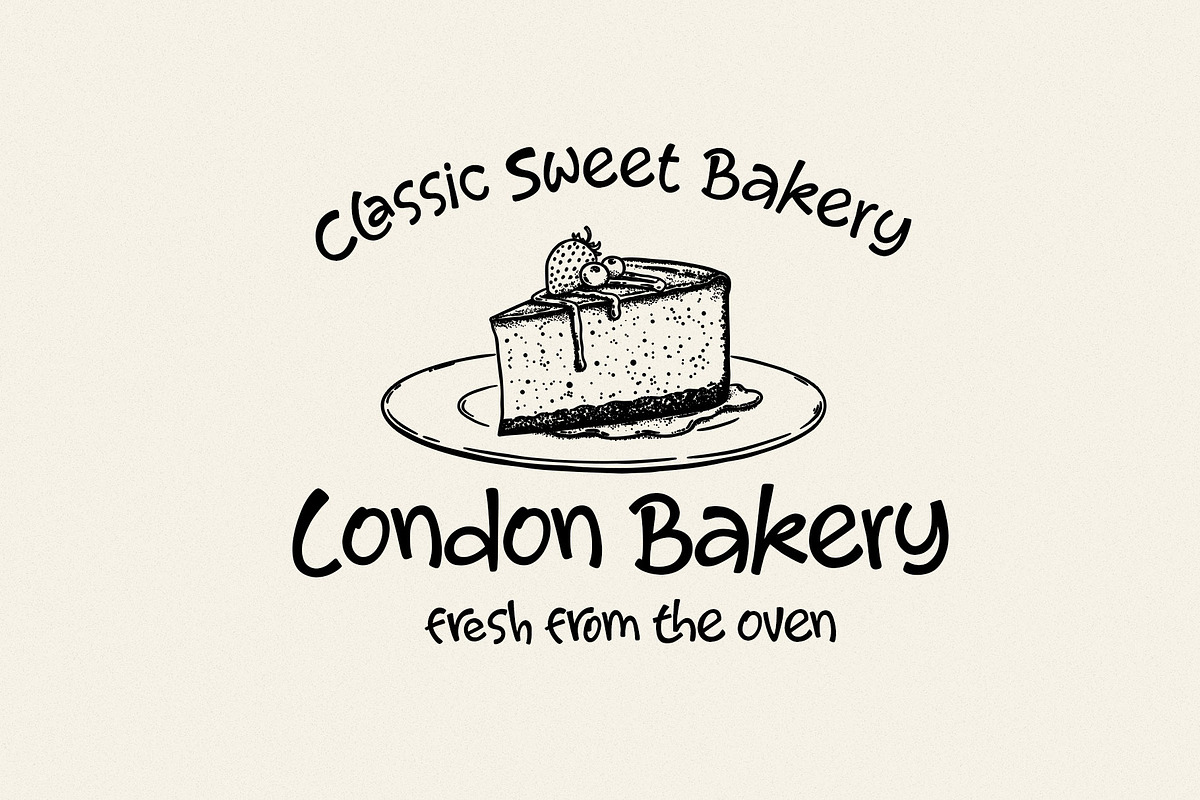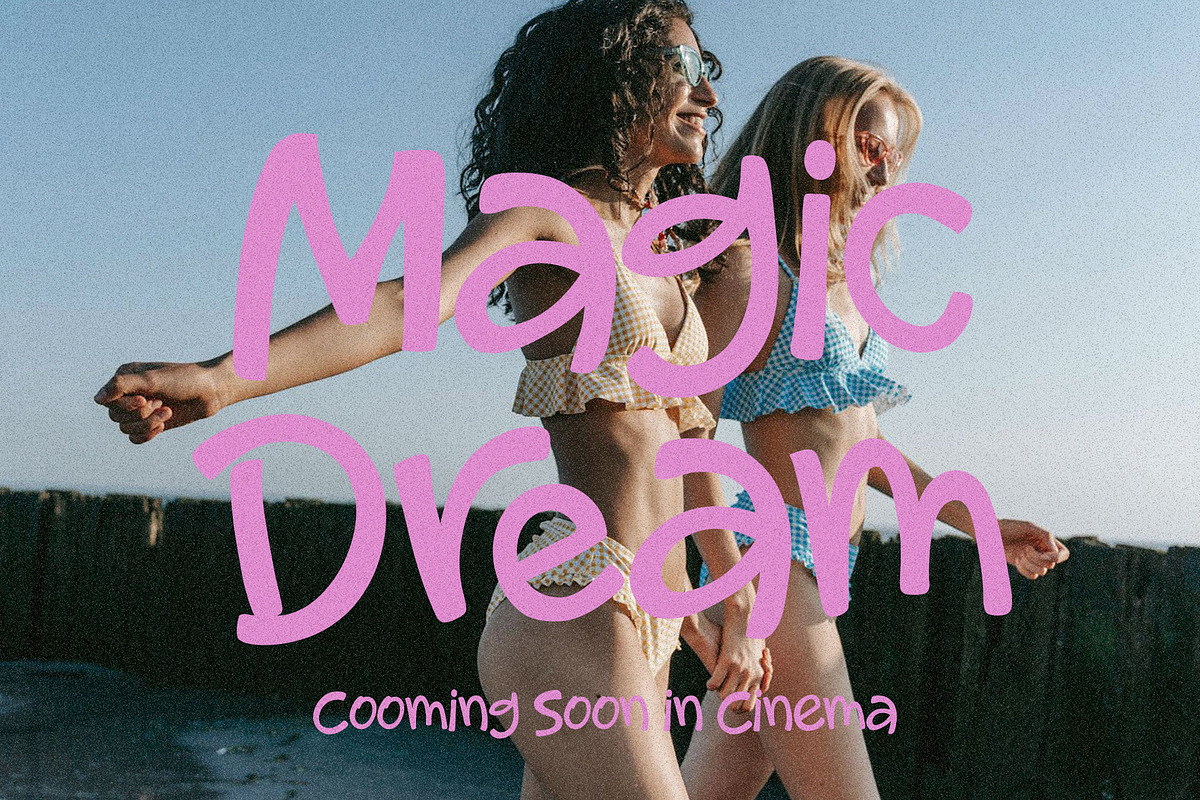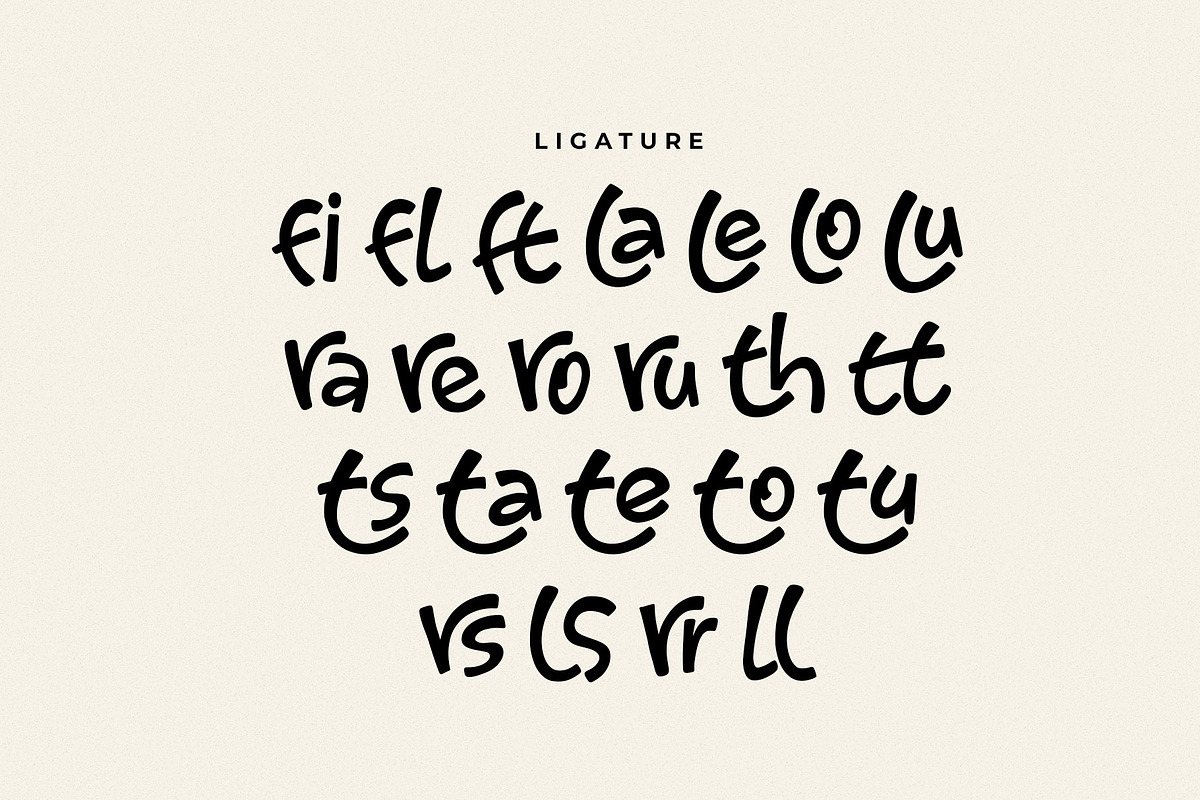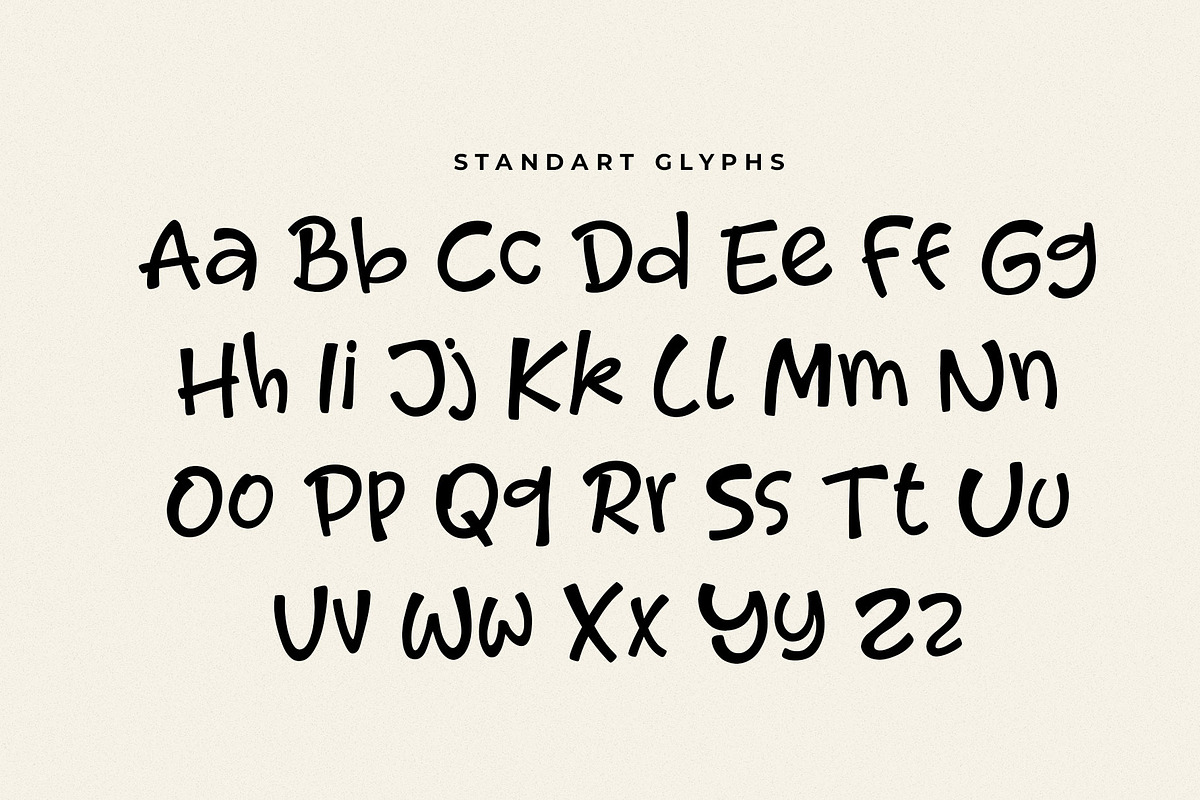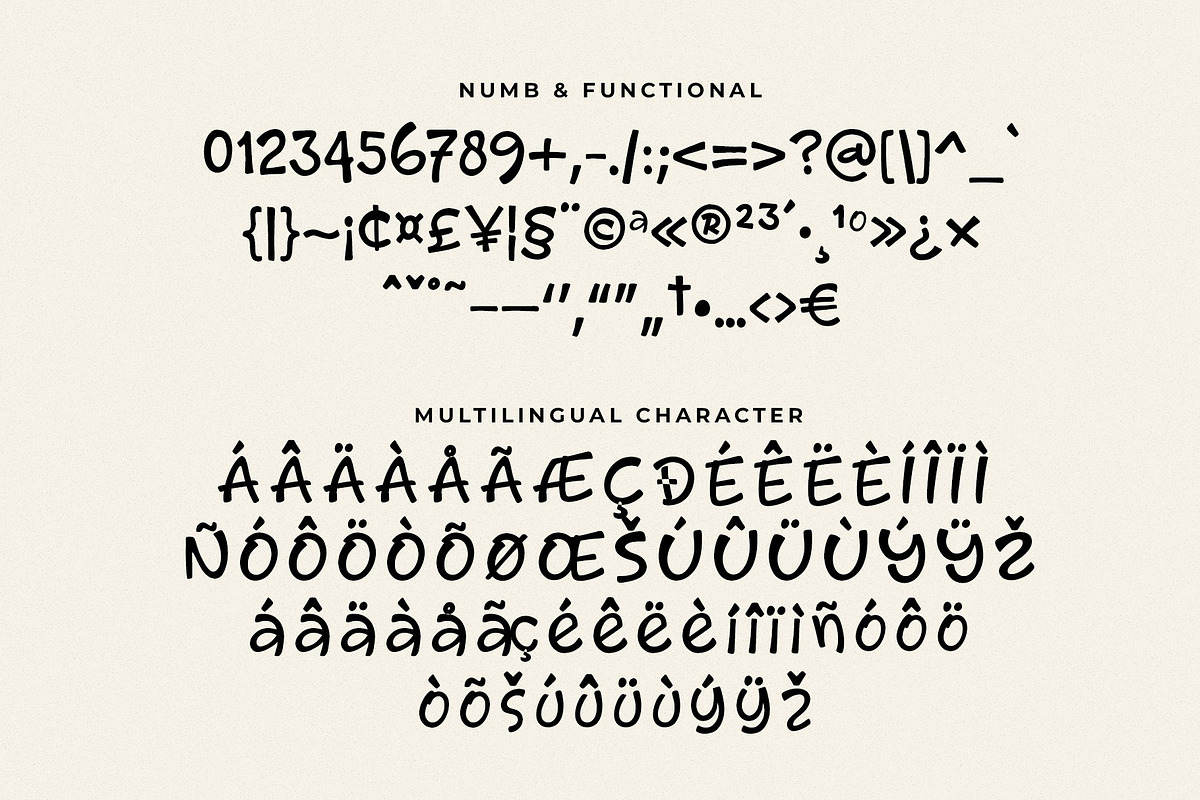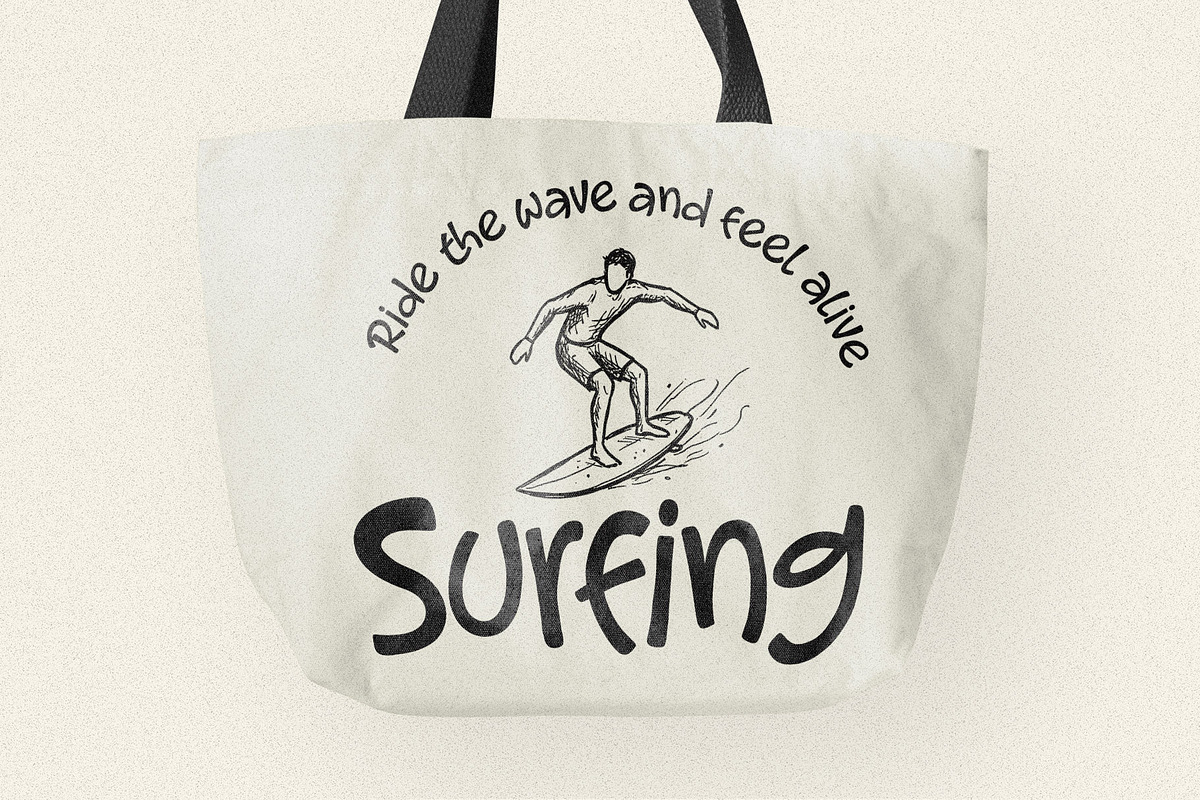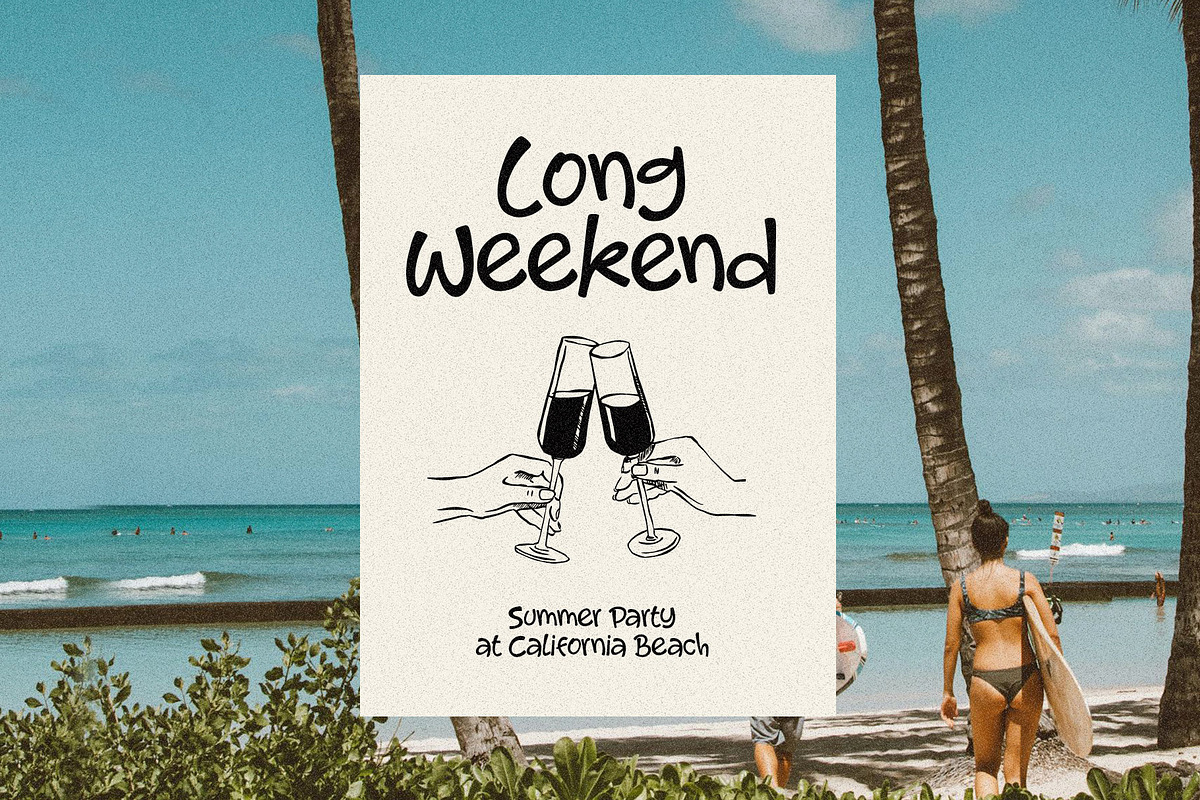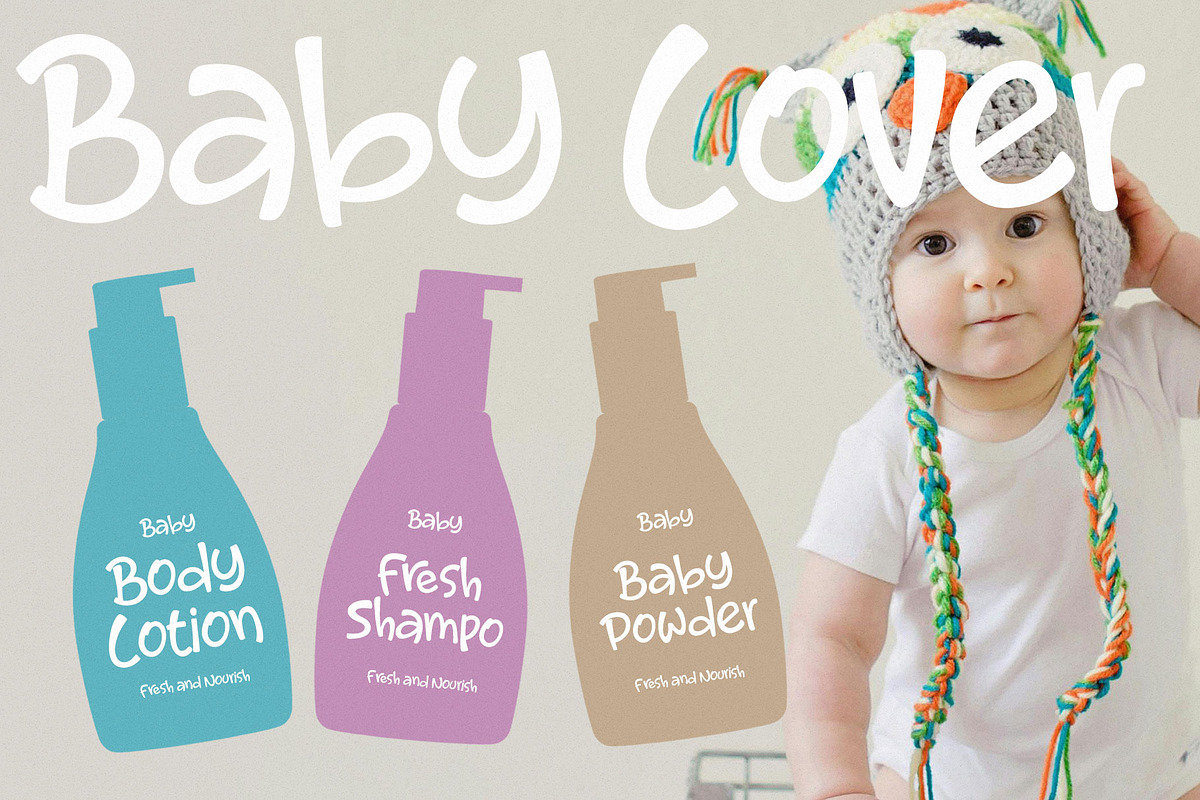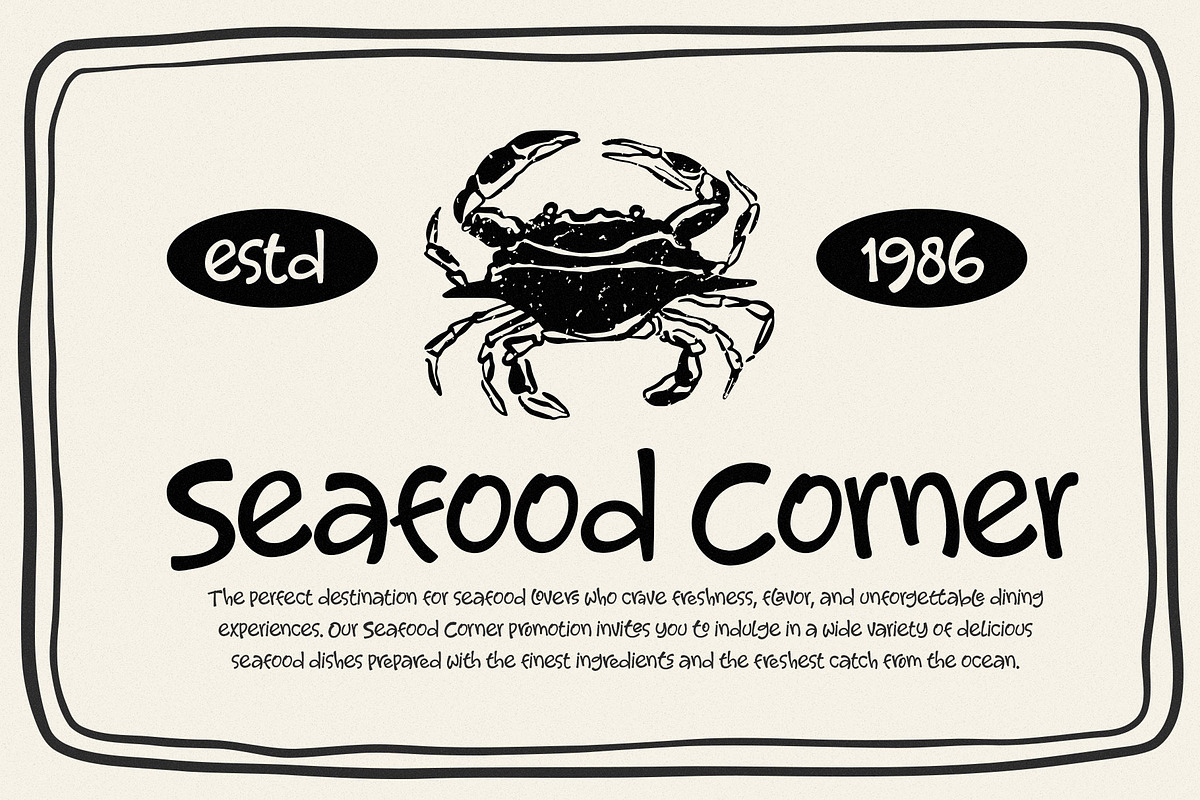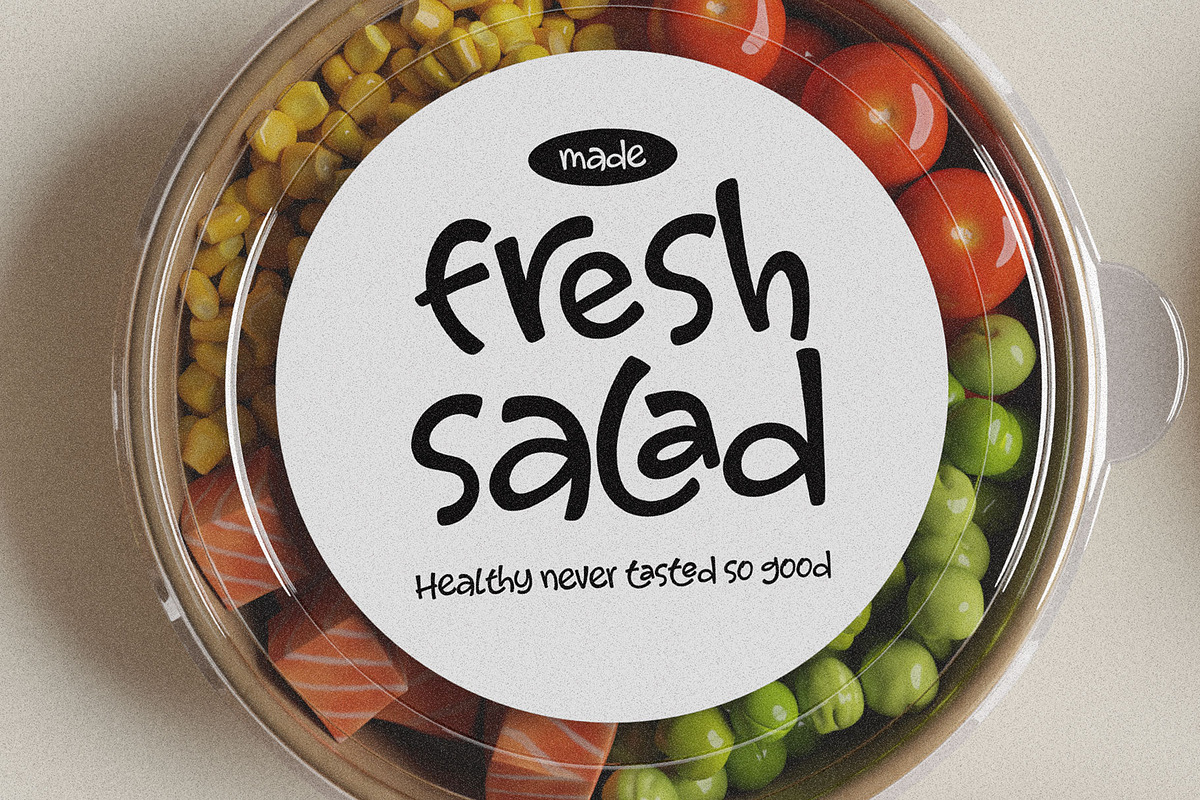
Kolend Casual Display Font
Kolend is casual display font with stylsih stroke font. Kolend come with modern and fun vibes. Kolend is a perfectly choice for any creative endeavor, creating, modern, lifestyle design such as logotype, title, cover, branding, invitations, wedding designs, display and magazine, social media posts, advertisements, printed quotes, product packaging, corporate brand, product designs, labels, photography, watermarks, special events and any other project with modern touch.
- Standart Glyphs
- Alternate and ligature
Fonts include Multilingual Character for: Afrikaans, Albanian, Asu, Basque, Bemba, Bena, Breton, Chiga, Cornish, Dutch, English, Estonian, Filipino, Finnish, Friulian, Galician, Gusii, Indonesian, Irish, Italian, Kabuverdianu, Kalenjin, Kinyarwanda, Luo, Luxembourgish, Luyia, Machame, North, Oromo, Portuguese, Quechua, Romansh, Rombo, Rundi, Rwa, Samburu, Sango, Sangu, Scottish, Gaelic, Sena, Shambala, Shona, Soga, Somali, Spanish, Swahili, Swedish, Swiss, German.